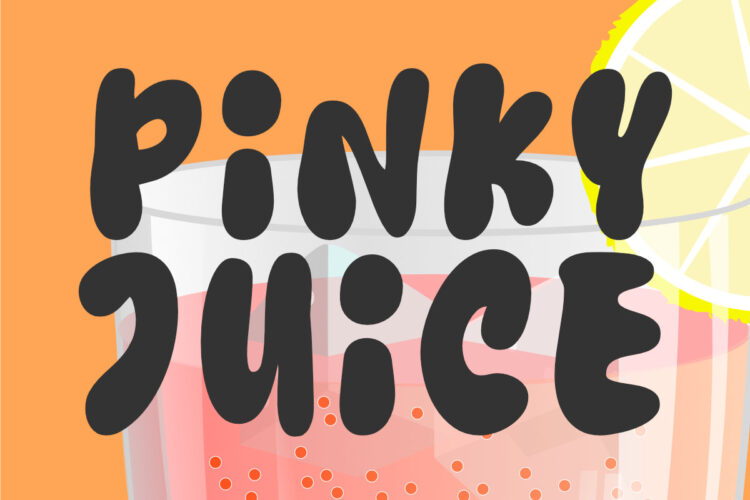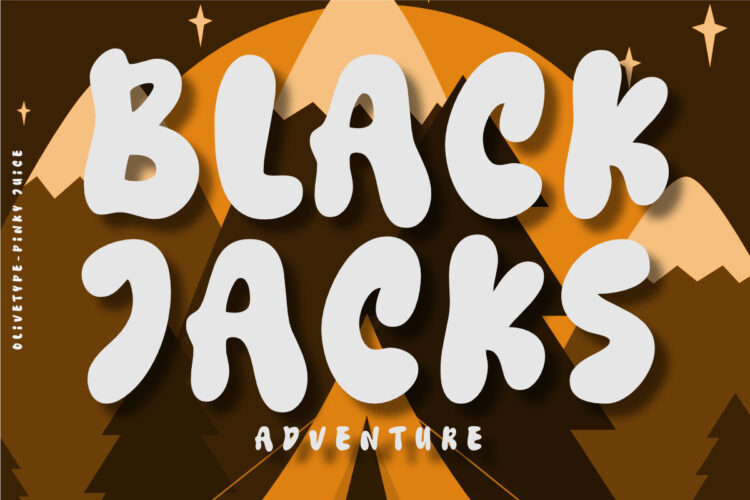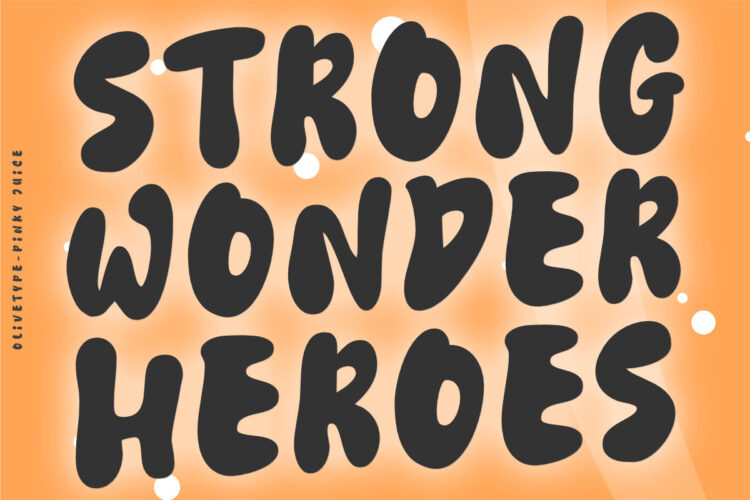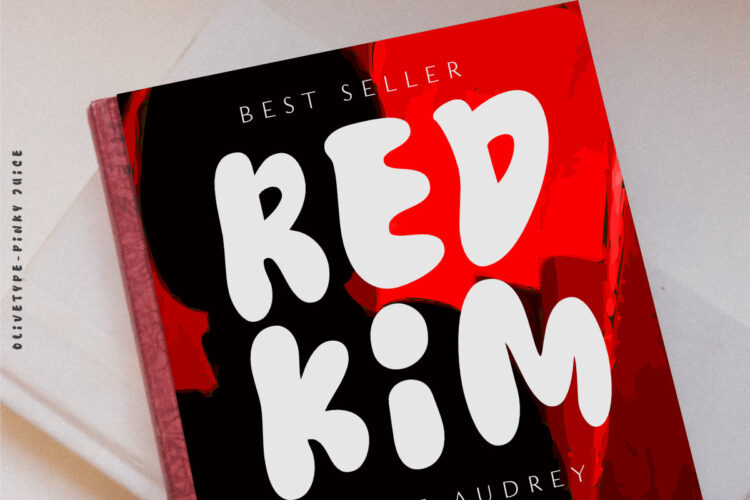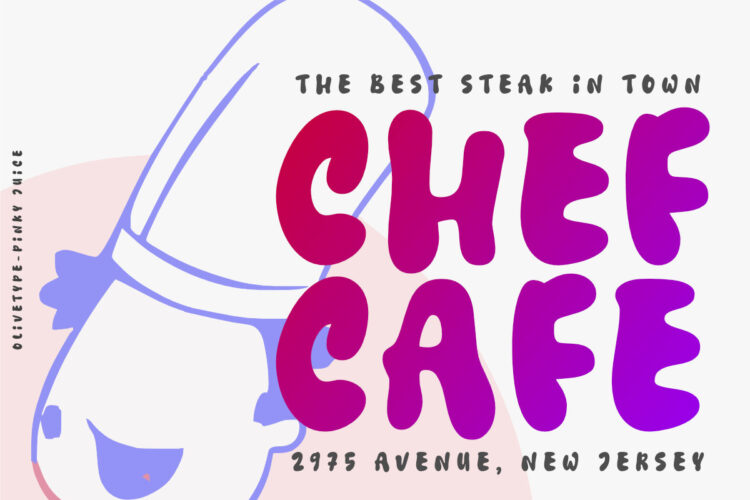
Pinky Juice is the perfect way to add some fun and personality to your work. It’s a bold, playful font that will make your work stand out. Plus, it’s very cute!